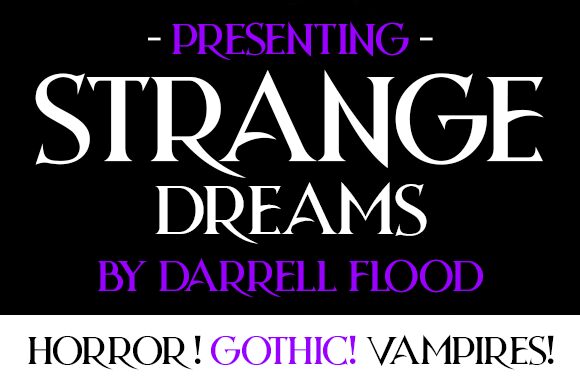
Strange Dreams
Introducing Strange Dreams, a modern gothic font designed by Darrell Flood. Perfect for creating mysterious, horror-themed designs and artworks, Strange Dreams adds an eerie touch to any project.